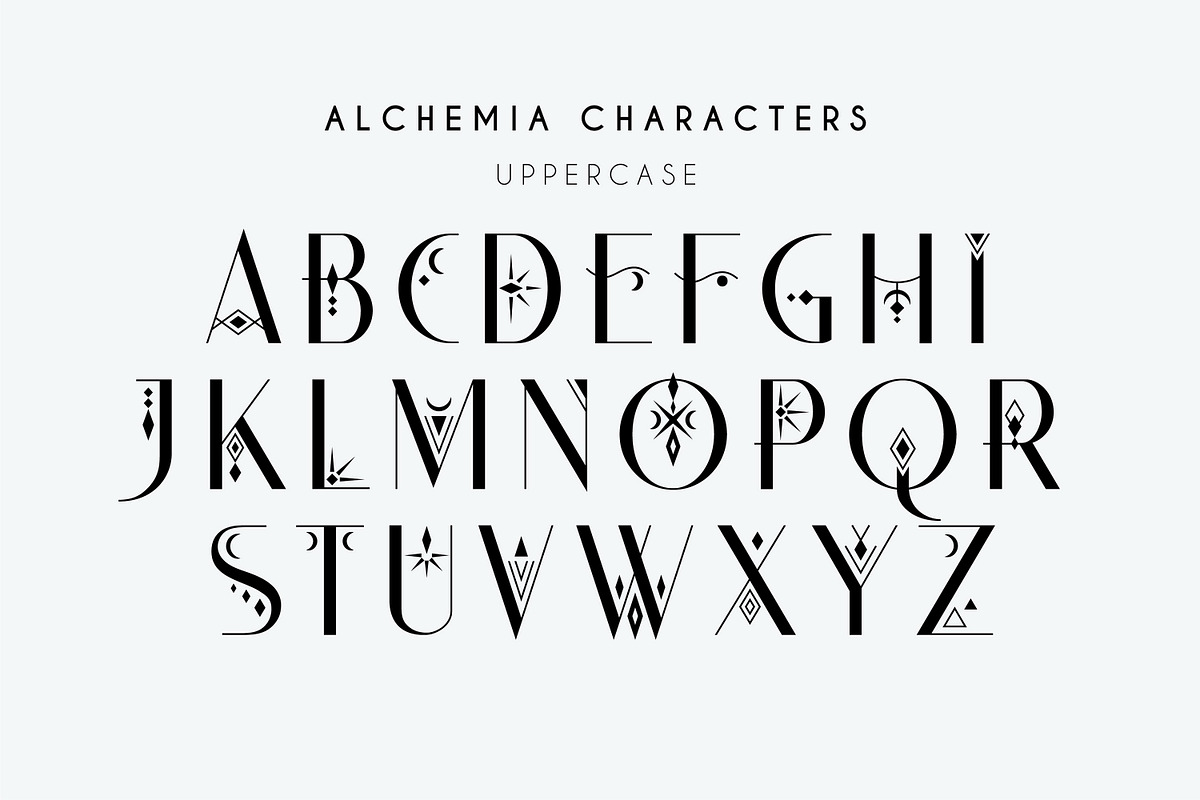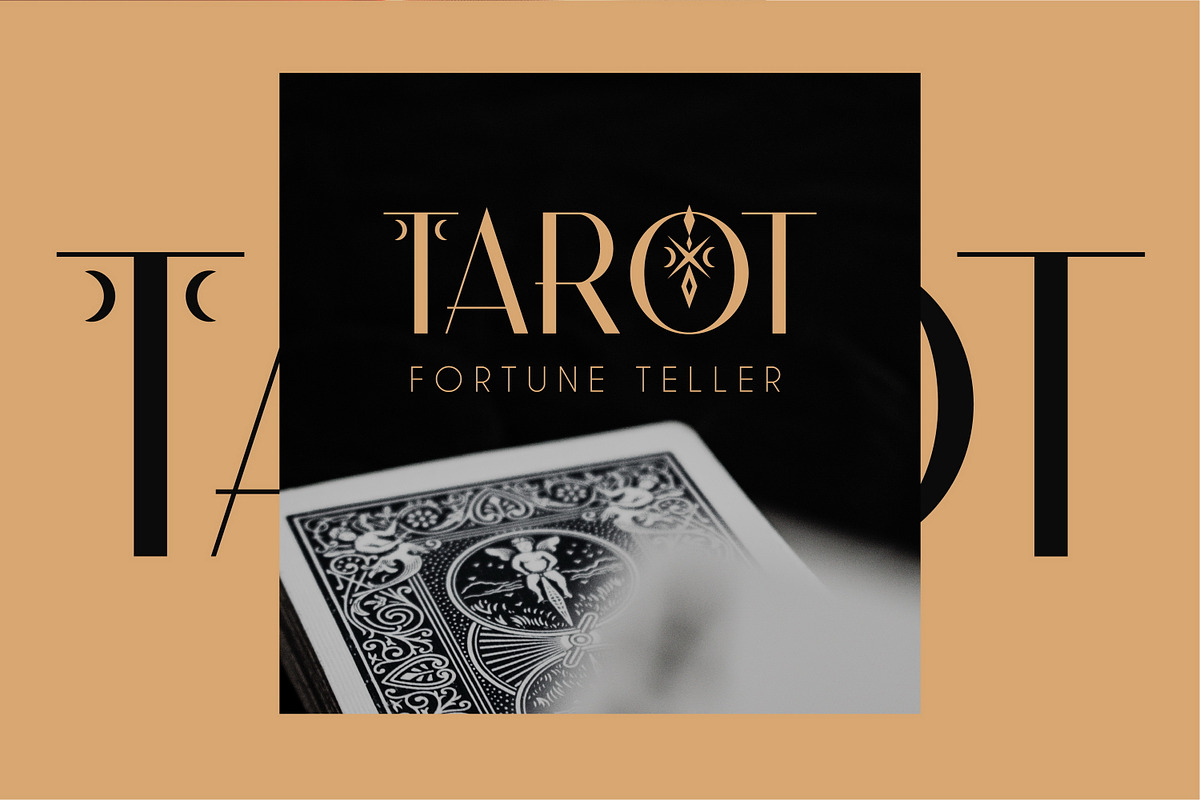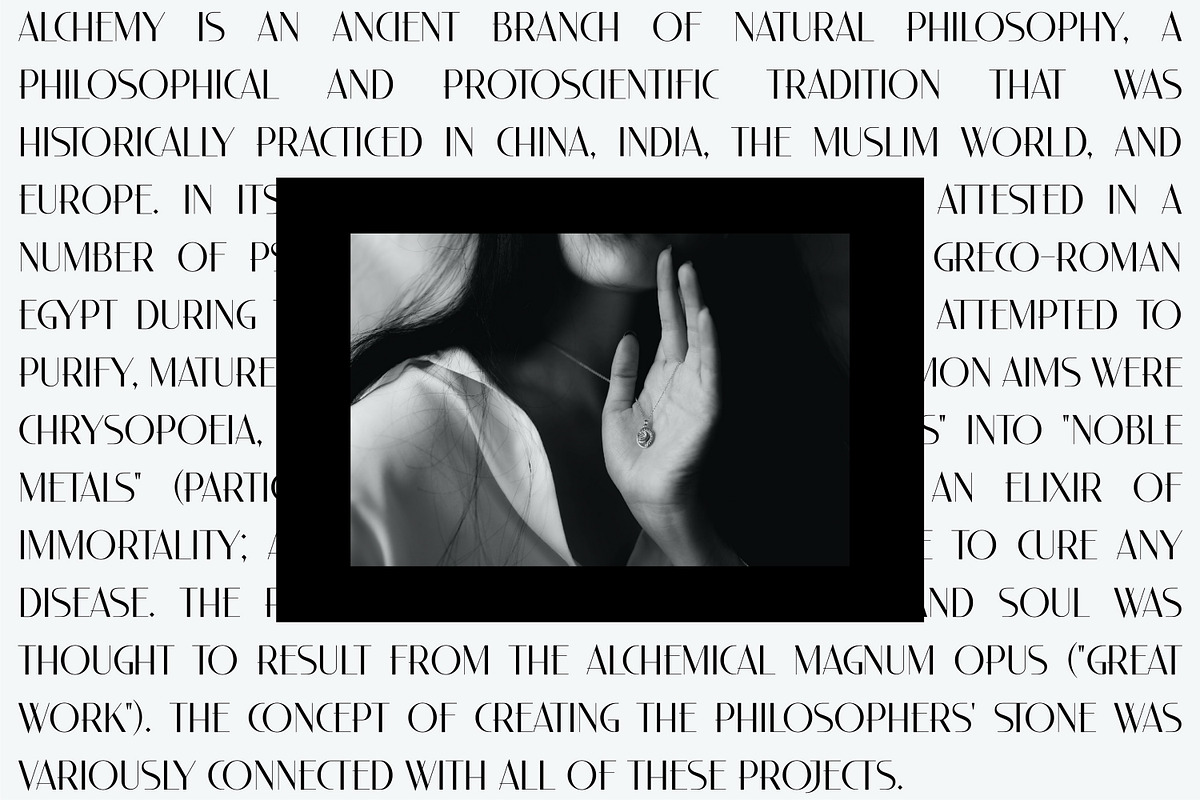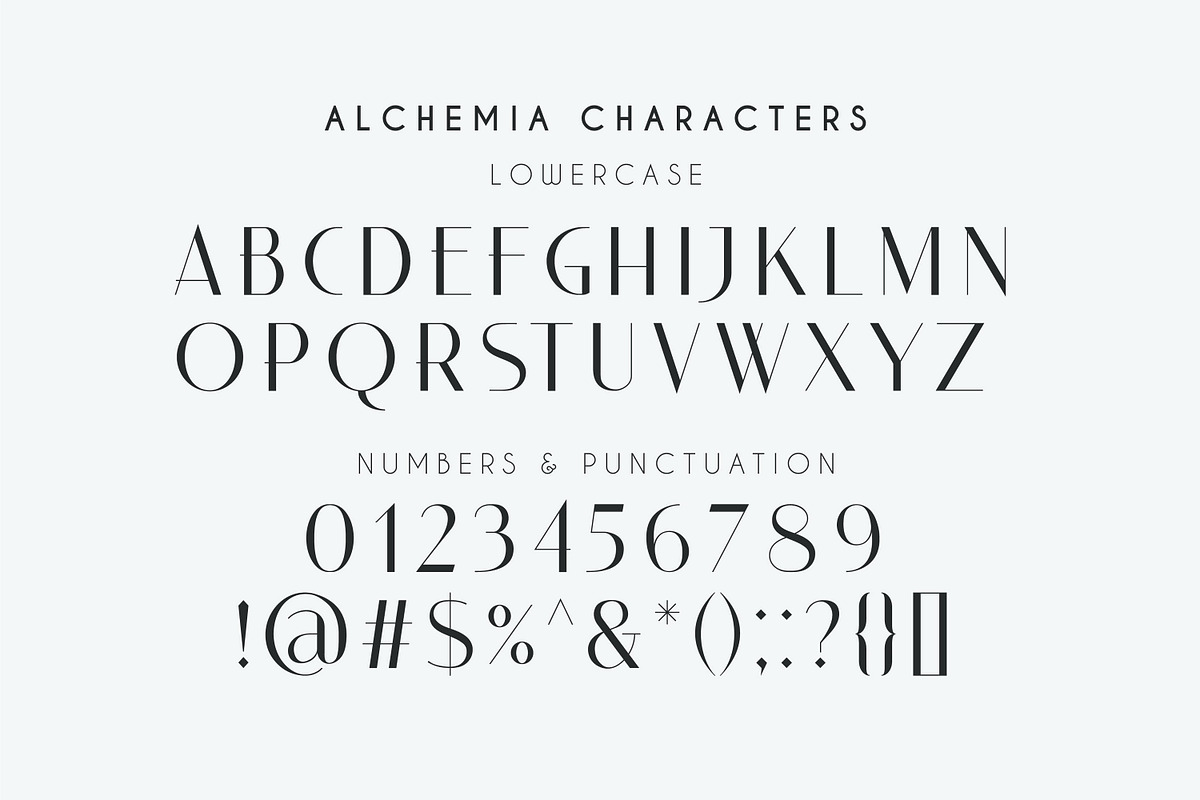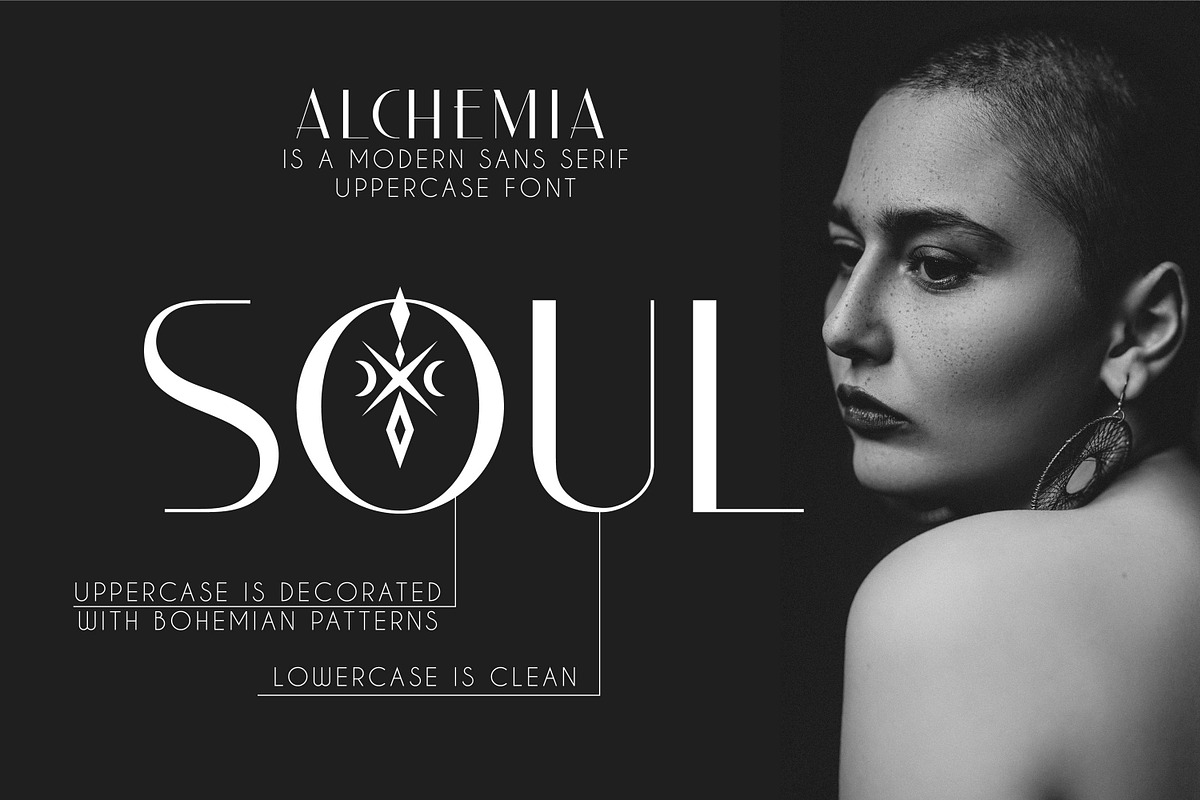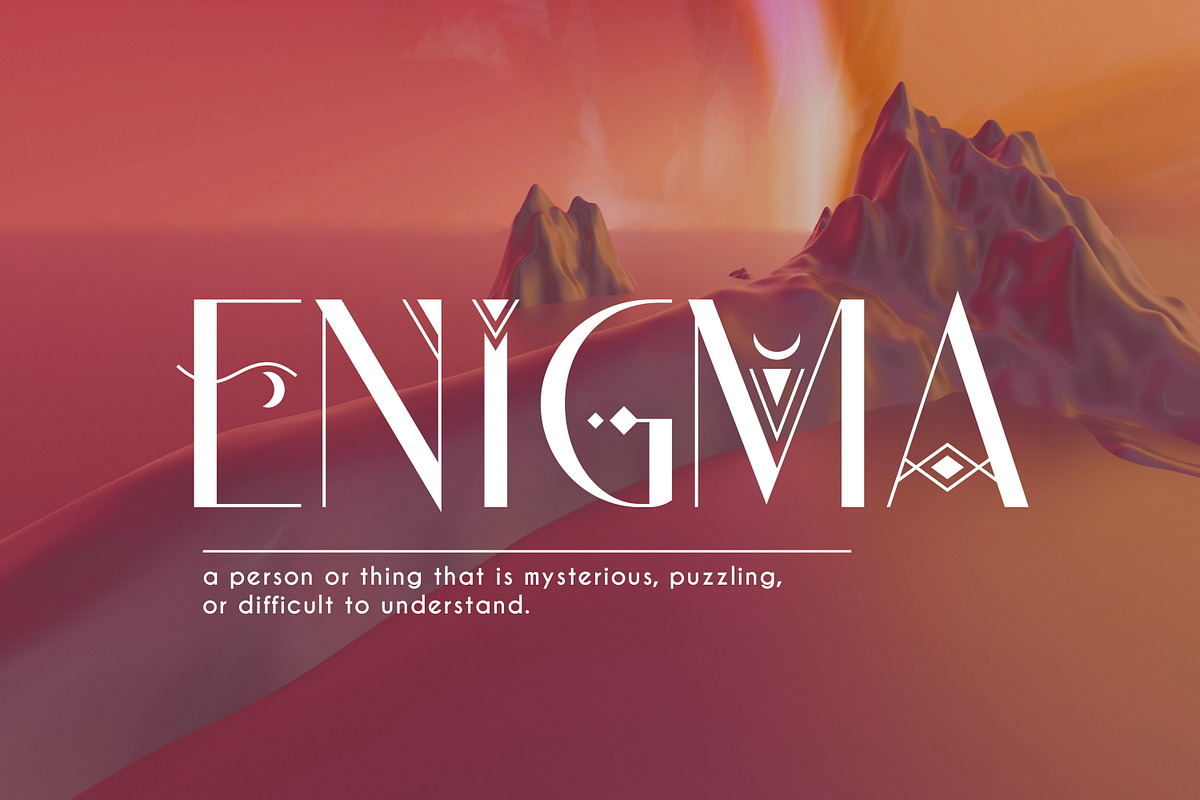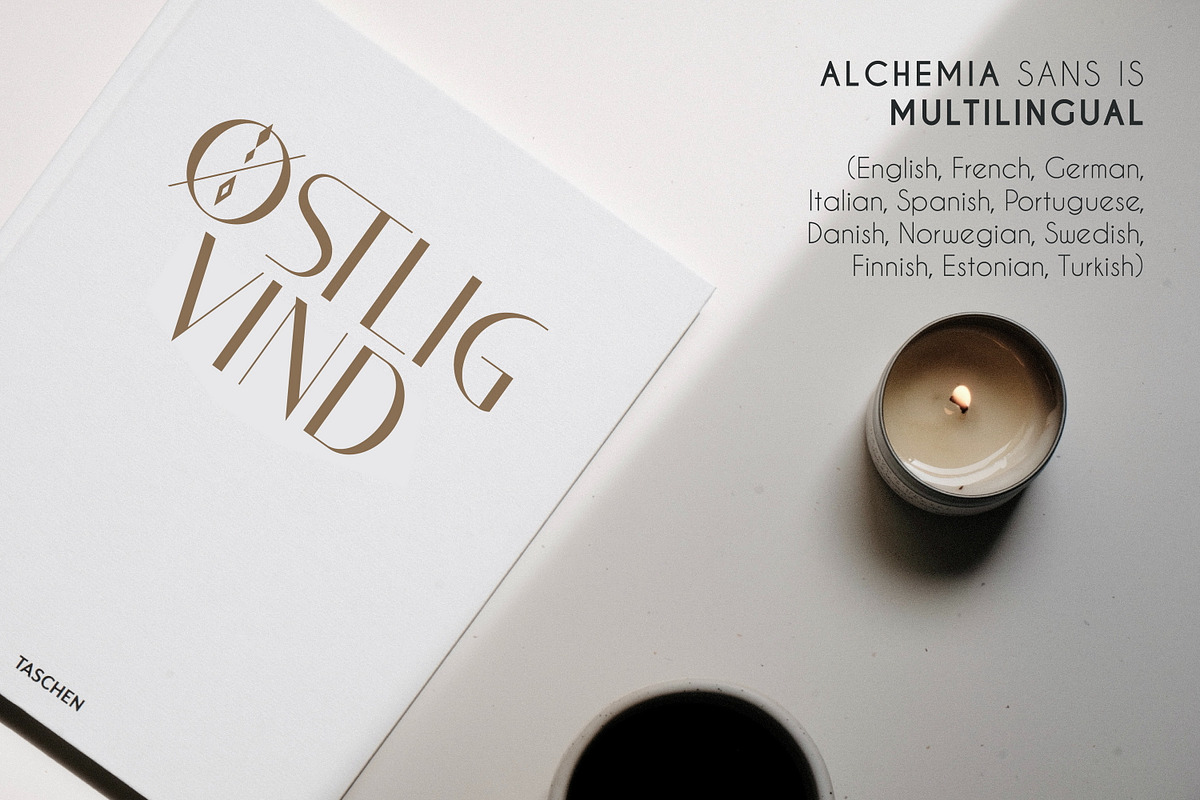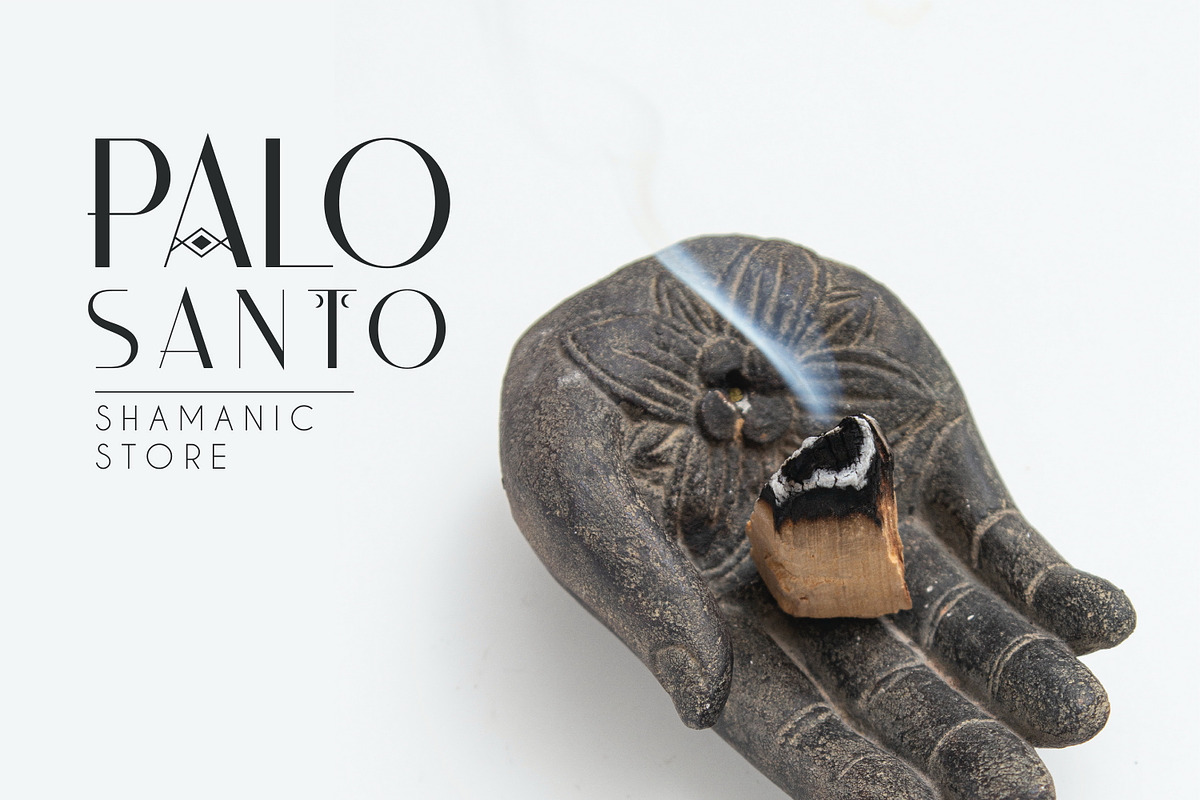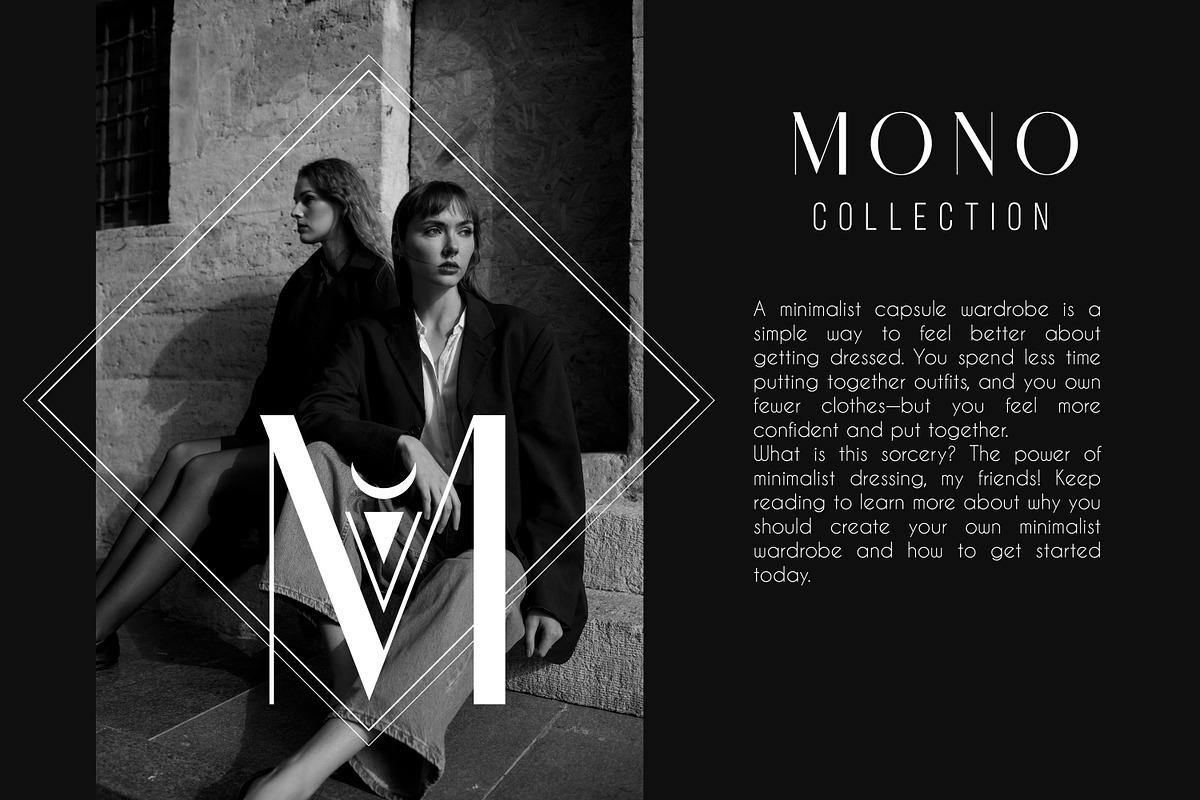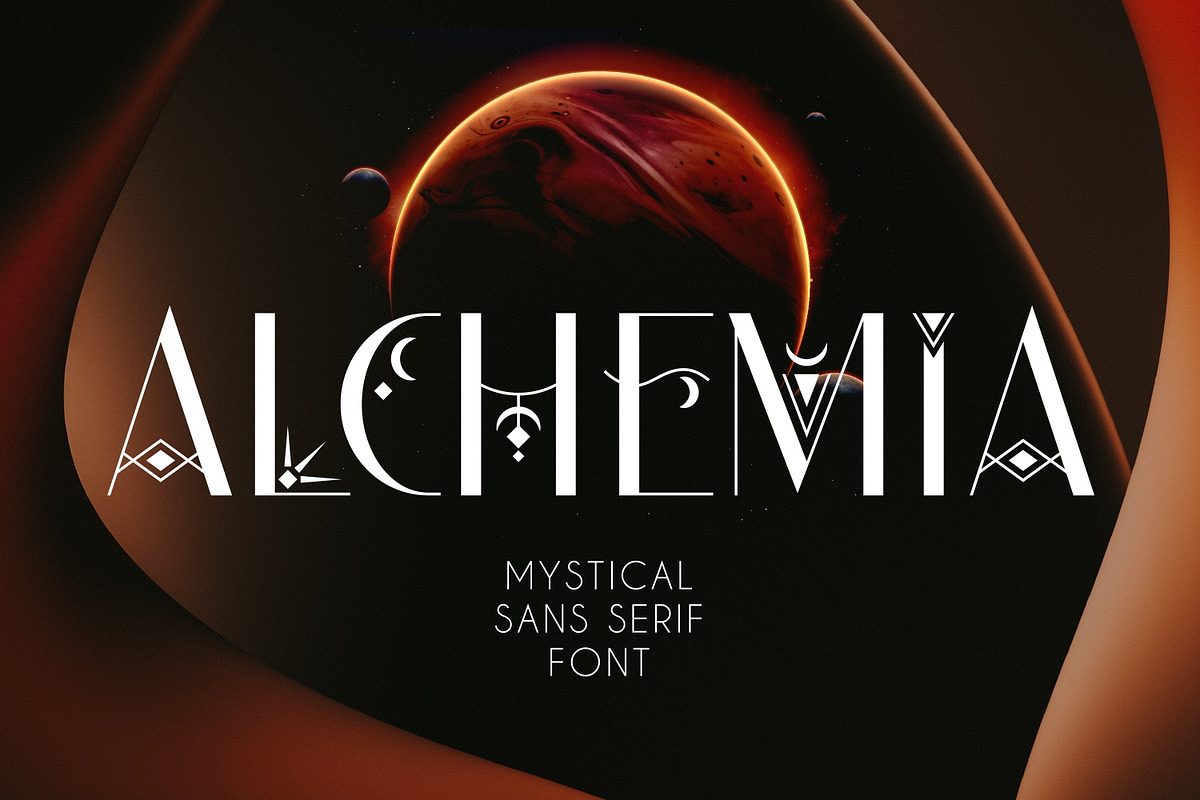
Alchemia - Mystical Sans Serif Font
ALCHEMIA is a modern sans serif font with mystical motives. The font is created in classic proportions and decorated with celestial and boho decor. ALCHEMIA is represented by sans serif lowercase and ornate uppercase. The font is suitable for the design on the theme of astrology, mysticism, spirituality, witchcraft, magic, esotericism.
Alchemia has extensive language support, it includes English, French, German, Italian, Spanish, Portuguese, Danish, Norwegian, Swedish, Finnish, Estonian, Turkish. Need to know if your language is supported? Type any words in the text box below and see if all characters you need are there.